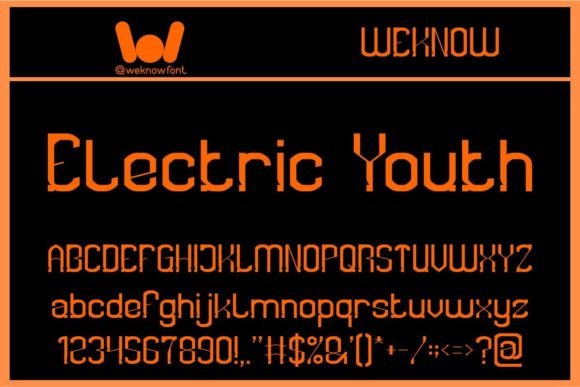
Electric Youth Font: A Futuristic Typeface for Modern Designs
In the realm of typography, few fonts have managed to capture the essence of futurism and technological advancement as effectively as Electric Youth. This pioneering sci-fi display font has been making waves in the design community with its unique blend of modern allure and retro-futuristic charm. Electric Youth is more than just a font – it’s an experience, a statement, and a bold declaration of innovation.
Key Features of Electric Youth Font
- Futuristic Design: Electric Youth boasts a sleek, high-tech aesthetic that is perfect for brands and designs looking to convey a sense of forward-thinking dynamism.
- Technological Savvy: The font’s design elements are infused with a sense of technological advancement, making it ideal for use in sci-fi related projects, tech startups, and innovative corporate identities.
- Versatility: Electric Youth is adaptable and can be used across various platforms, from fashion branding and media titles to graphic novels and animated works.
- Electrifying Charm: The font’s unique design elements are sure to capture the attention of audiences, making it perfect for use in social media graphics, movie titles, and book covers.
10 Inspiring Ways to Use Electric Youth Font
- Fashion Brand Logos: Give your fashion brand a modern twist with Electric Youth. Its futuristic design elements are sure to make your brand stand out in a crowded market.
- Movie Titles and Credits: Add a touch of futurism to your movie titles and credits with Electric Youth. Its high-tech aesthetic is perfect for sci-fi films, action movies, and futuristic thrillers.
- Music and Album Artwork: Use Electric Youth to create eye-catching album covers, music posters, and social media graphics that are sure to grab the attention of music lovers.
- Graphic Novels and Comics: Electric Youth is a perfect fit for graphic novels and comics that require a futuristic and dynamic typography.
- Animated Works: Bring your animated works to life with Electric Youth. Its bold and futuristic design elements are sure to add an extra layer of excitement to your animations.
- Book Covers: Give your book covers a modern makeover with Electric Youth. Its electrifying charm is sure to make your book stand out on bookshelves and online.
- Magazine Layouts: Use Electric Youth to add a touch of futurism to your magazine layouts. Its versatility makes it perfect for use in various types of publications.
- Social Media Graphics: Create eye-catching social media graphics with Electric Youth. Its bold and futuristic design elements are sure to grab the attention of audiences on platforms like YouTube and Instagram.
- Web Design: Give your website a visual makeover with Electric Youth. Its adaptable uniqueness makes it perfect for use in web design, adding a touch of modern allure to your online presence.
- Corporate Identities: Use Electric Youth to create innovative corporate identities that resonate with forward-thinking dynamism. Its futuristic design elements are sure to make your brand stand out in a crowded market.
The Benefits of Using Electric Youth Font
- Increased Engagement: Electric Youth is sure to capture the attention of audiences, increasing engagement and interaction with your brand or design.
- Modern Allure: The font’s futuristic design elements add a touch of modern allure to your designs, making them stand out in a crowded market.
- Versatility: Electric Youth is adaptable and can be used across various platforms, making it a great addition to your design arsenal.
- Unique Identity: The font’s unique design elements are sure to give your brand or design a unique identity, setting it apart from competitors.
Tips and Tricks for Using Electric Youth Font
- Experiment with Colors: Electric Youth looks great in bold and bright colors. Experiment with different color schemes to find the one that works best for your design.
- Play with Typography: The font’s design elements can be used in creative ways. Play with typography to find the perfect combination that works for your design.
- Use it Sparingly: Electric Youth is a bold font. Use it sparingly to avoid overwhelming your design.
- Pair it with Other Fonts: Electric Youth can be paired with other fonts to create a unique and interesting typography.
Electric Youth Font is a game-changer for designers and brands looking to add a touch of futurism to their designs. Its unique blend of modern allure and retro-futuristic charm makes it perfect for use in various types of projects, from fashion branding and media titles to graphic novels and animated works. With its adaptability, versatility, and electrifying charm, Electric Youth is sure to supercharge any design project, providing an extra spark to your creative efforts.